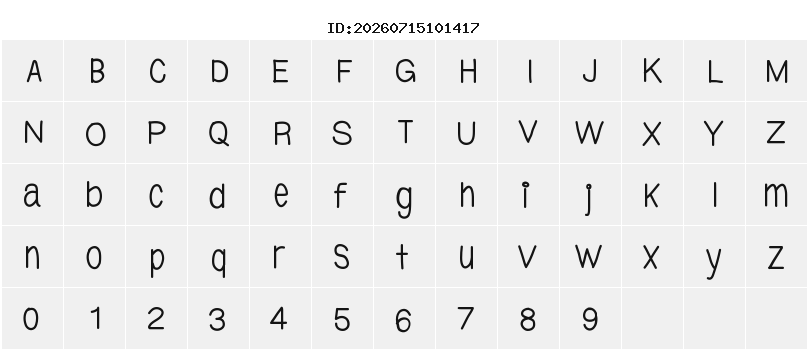
• Font Name: YBTallPretty
• Full Font Name: YBTallPretty
About YBTallPretty.ttf
YBTallPretty.ttf is a modern, elegant sans-serif font designed for ultimate readability and visual harmony. Perfect for branding, headlines, web design, and print materials.